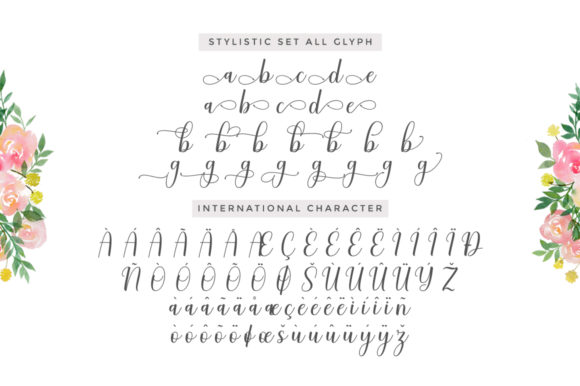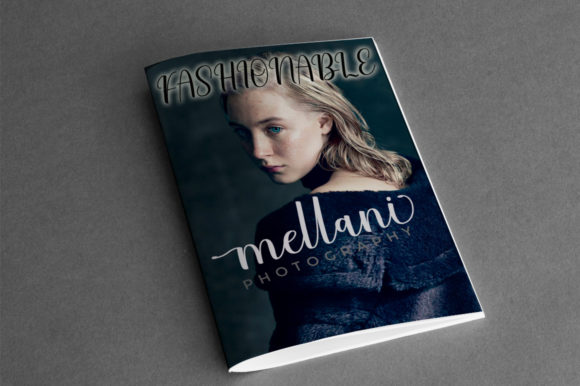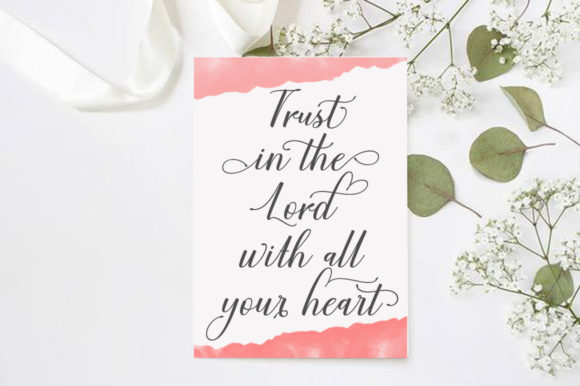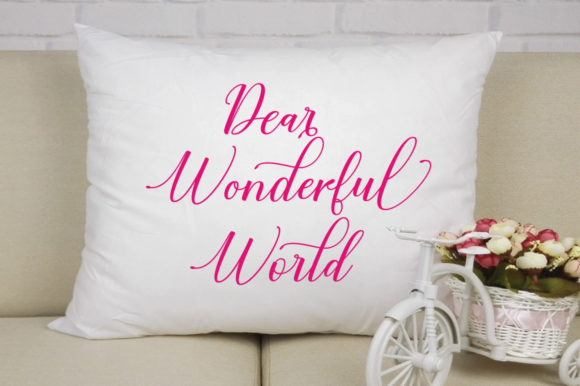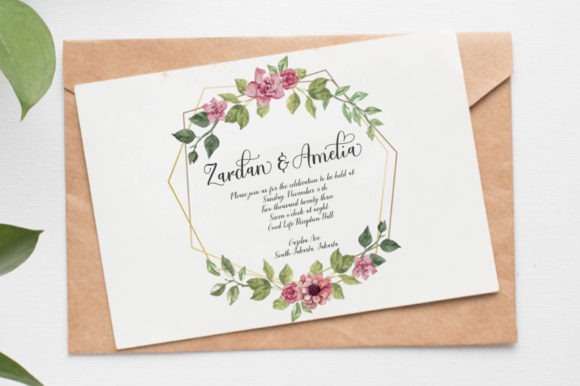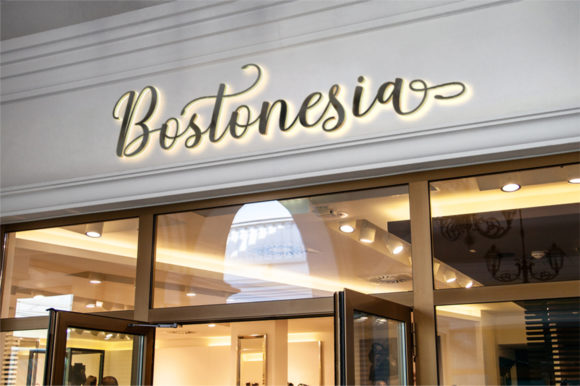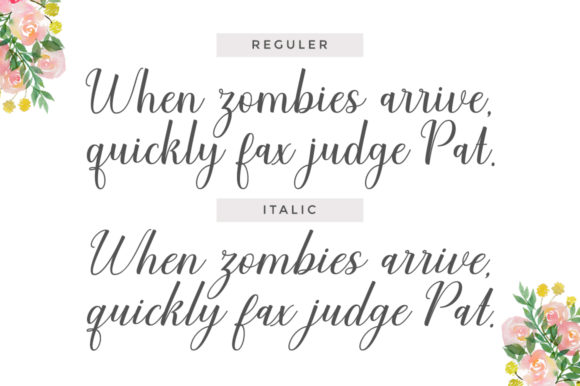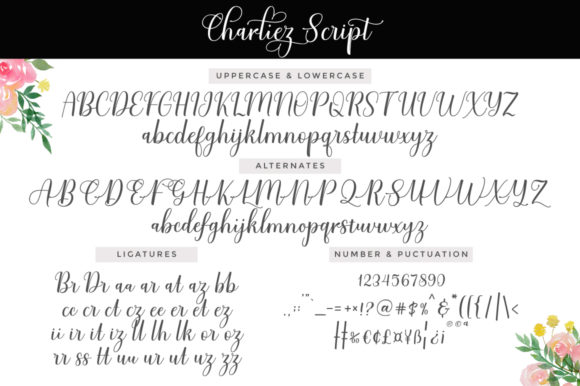
HomeScript FontsCharliez Font Script Fonts Charliez Font FacebookXPinterestWhatsApp Charliez Font Poster 2 Charliez Font Poster 3 Charliez Font Poster 4 Charliez Font Poster 5 Charliez Font Poster 6 Charliez Font Poster 7 Charliez Font Poster 8 Charliez Font Poster 9 Charliez Font Poster 10 About Charliez Font Charliez is a playful and lovely handwritten font with amazing swashes. Get inspired by its timeless elegance. DOWNLOAD NOW People also explored Innocent Girl Font Always Font Back to School Font I Am Okay Font Happy Monday Font Baby Hisneya Font Bounty Font Batter Shake Font Badinerie Love Font 269 0 TagsCharliez Font Previous articleTaifun FontNext articleBellaluna Font LEAVE A REPLY Cancel reply Comment: Please enter your comment! Name:* Please enter your name here Email:* You have entered an incorrect email address! Please enter your email address here Website: Save my name, email, and website in this browser for the next time I comment. Personal Use Free Handayani Personal Use Free Read more about this font Mueband Personal Use Free Read more about this font Trunk Shaped Personal Use Free Read more about this font The Lima Personal Use Free Read more about this font BLOG Free Fonts Risk: Why Free Fonts Can Be Dangerous for Designers Free Fonts Risk: Why Free Fonts Can Be Dangerous for Designers Using free fonts is a common practice in web and graphic design. However, the... How to Install and Use Fonts on Windows, macOS, and Web Projects 5 Fonts That Will Dominate Design Trends in 2026 The 10 Best Handwriting Fonts to Add Personality to Your Designs